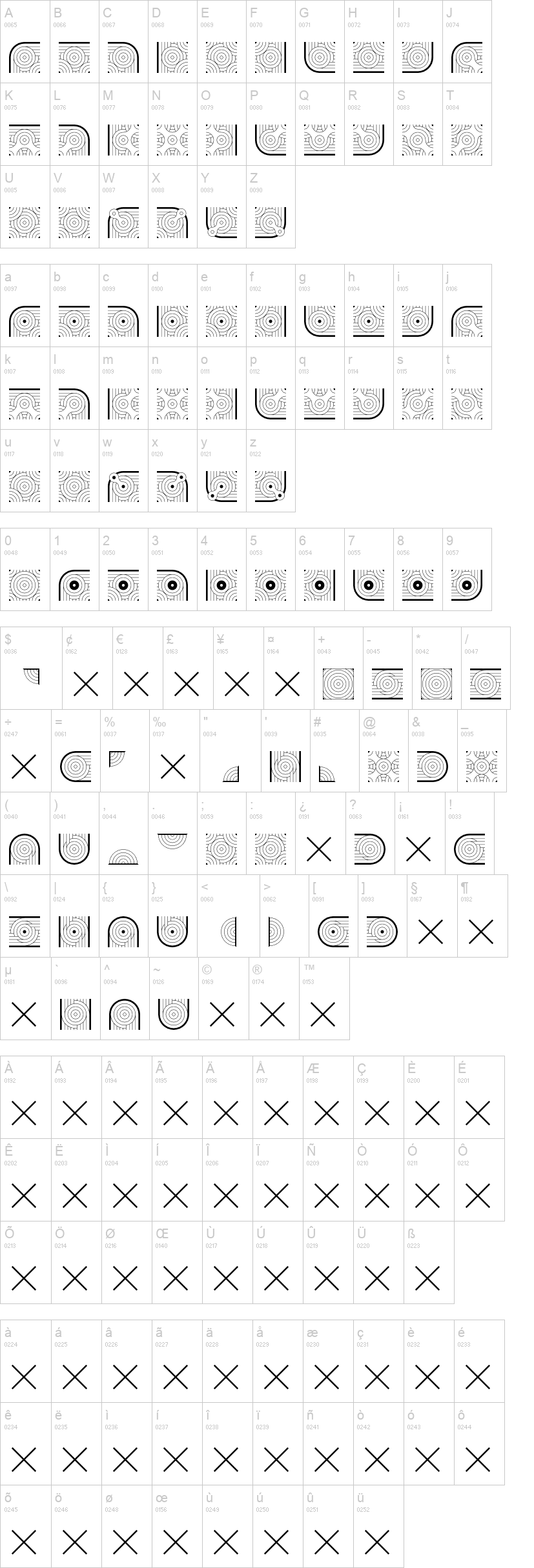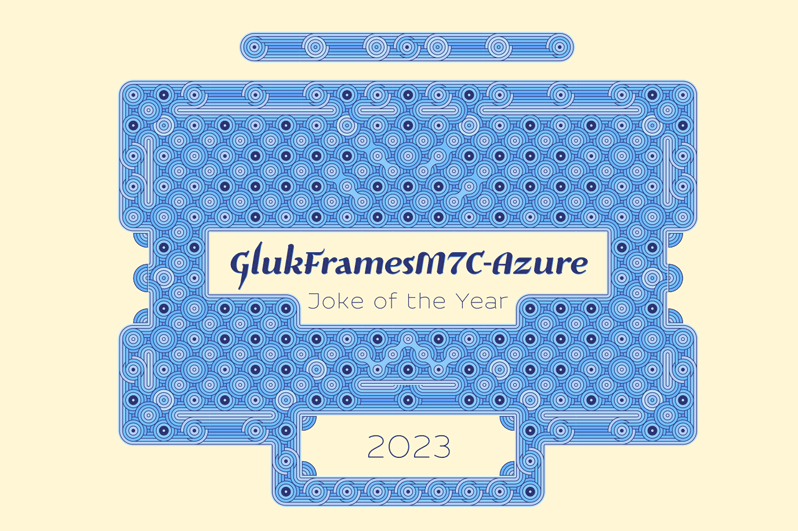
Note of the authorFont GlukFramesM7 is a set of Elements for creating Frames and Patterns in .OTF Format. Additional color font GlukFramesM7C-Azure in OpenTypeSVG format. To be able to use the color fonts you need to have installed program with OpenTypeSVG support like a Adobe Phởtoshop CC2017, Adobe Illustrator CC2018, InDesign CC2019 or Inkscape 1.0. More info, small how-to, examples of use You will find in attached PDF. Have Fun!